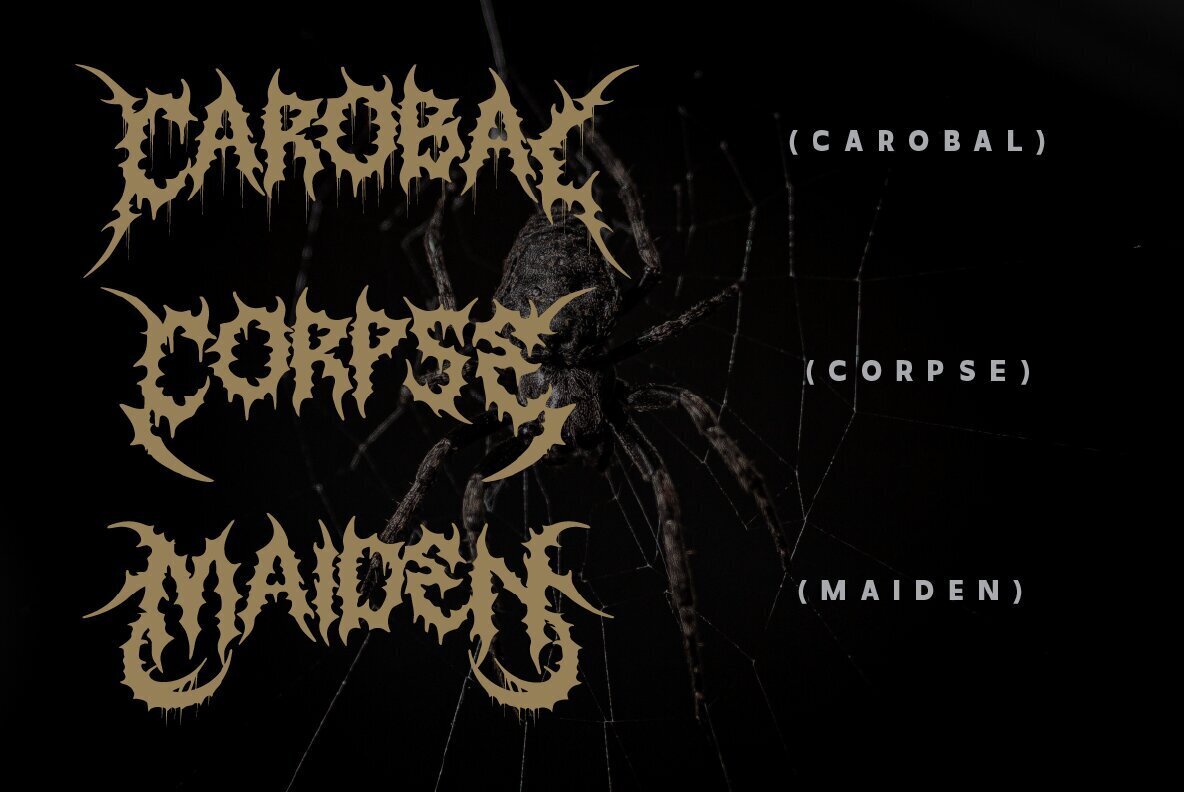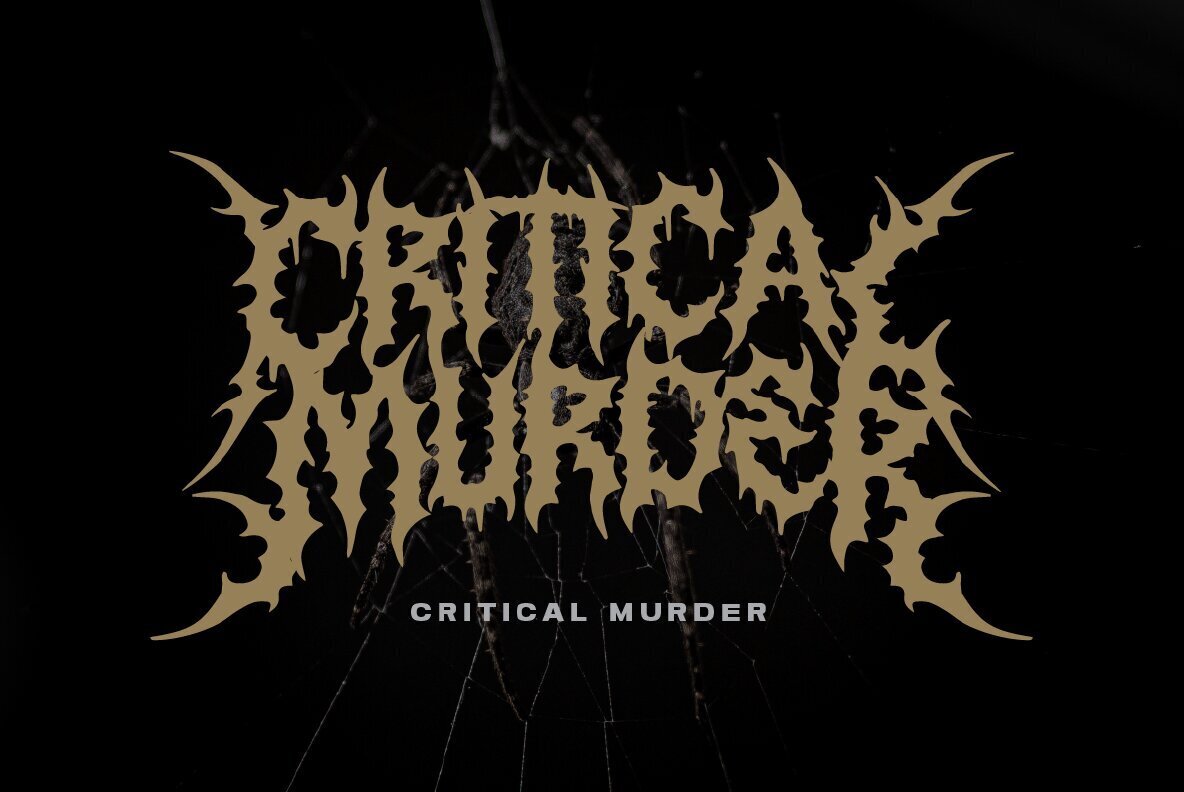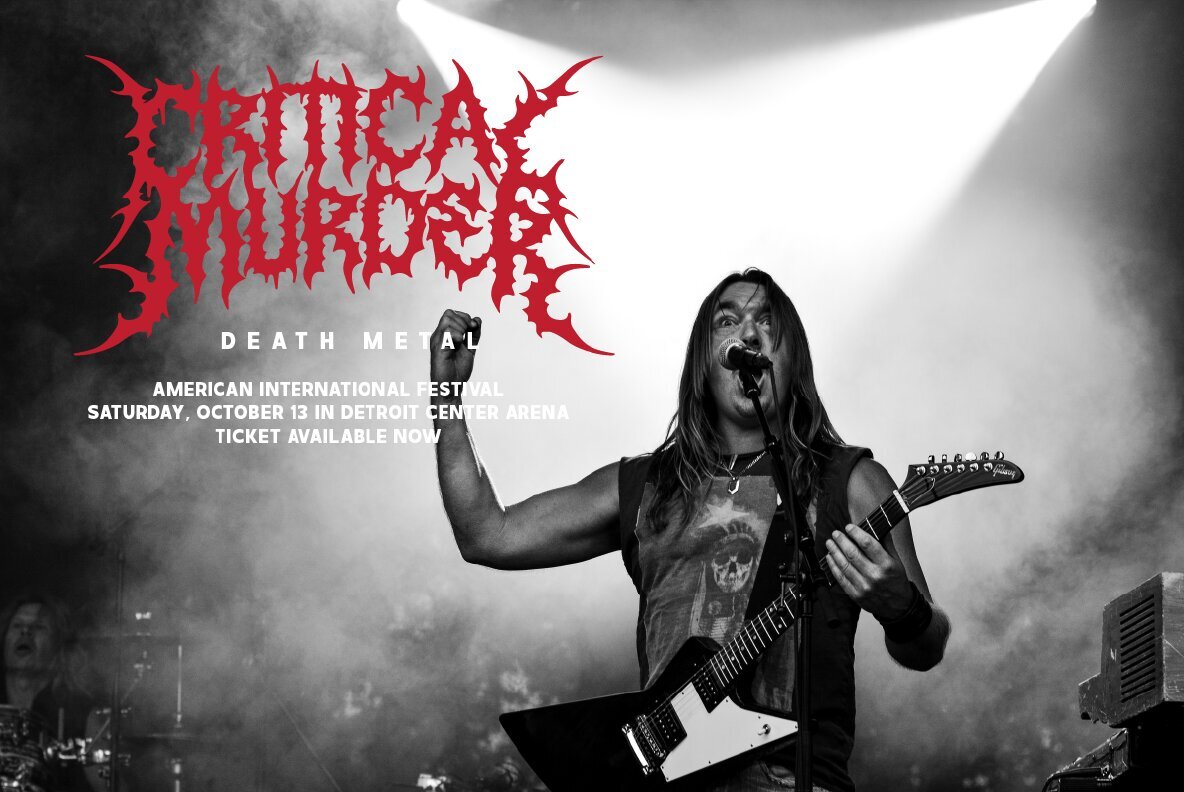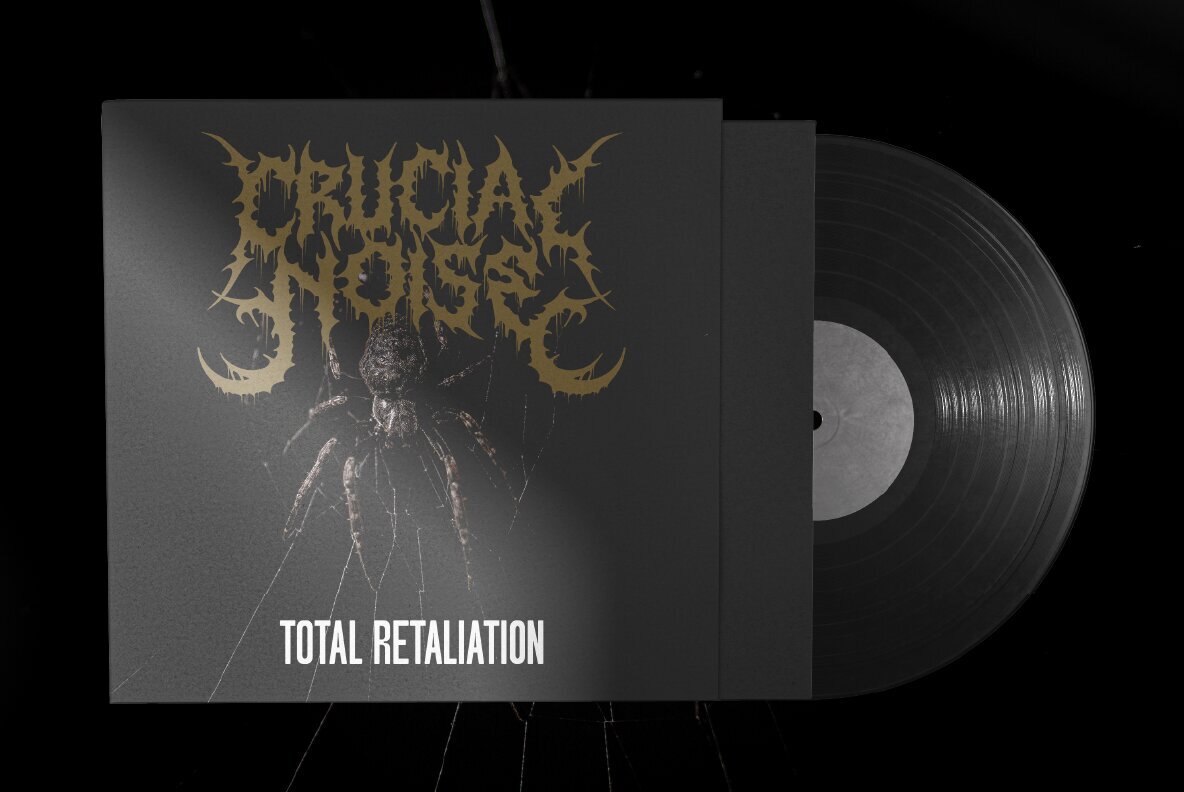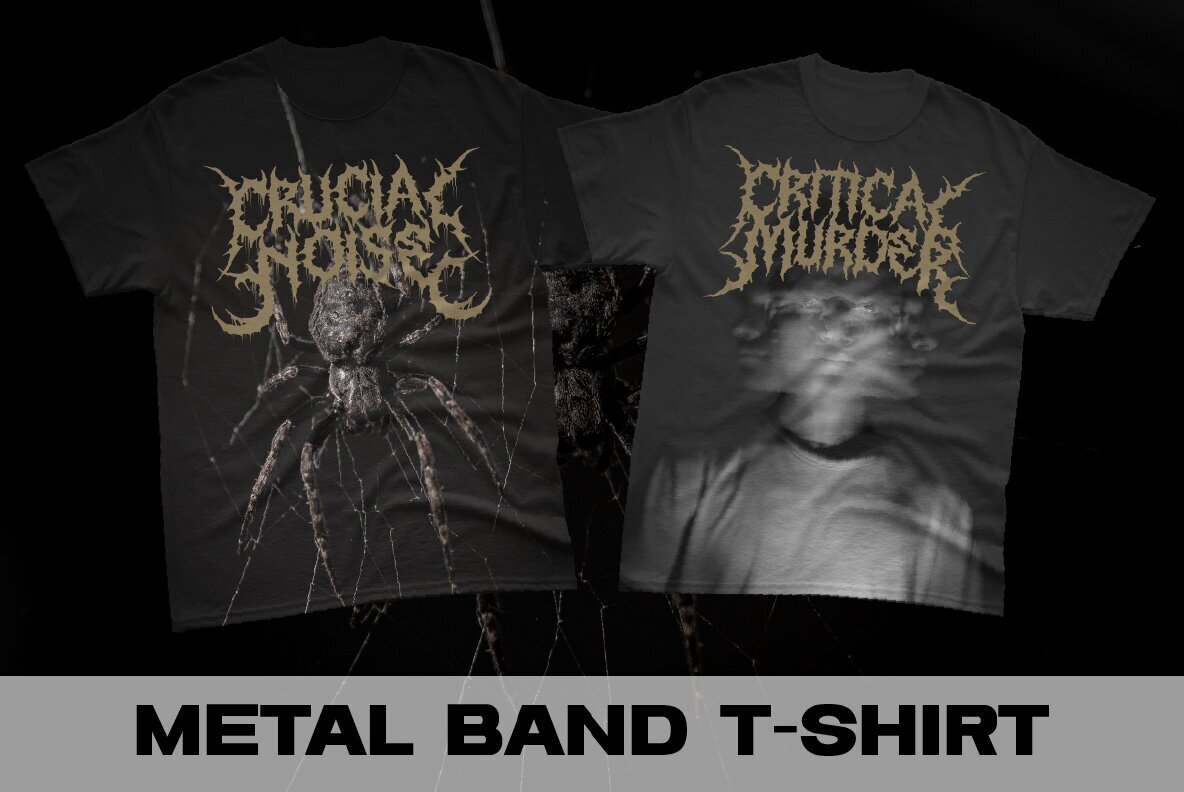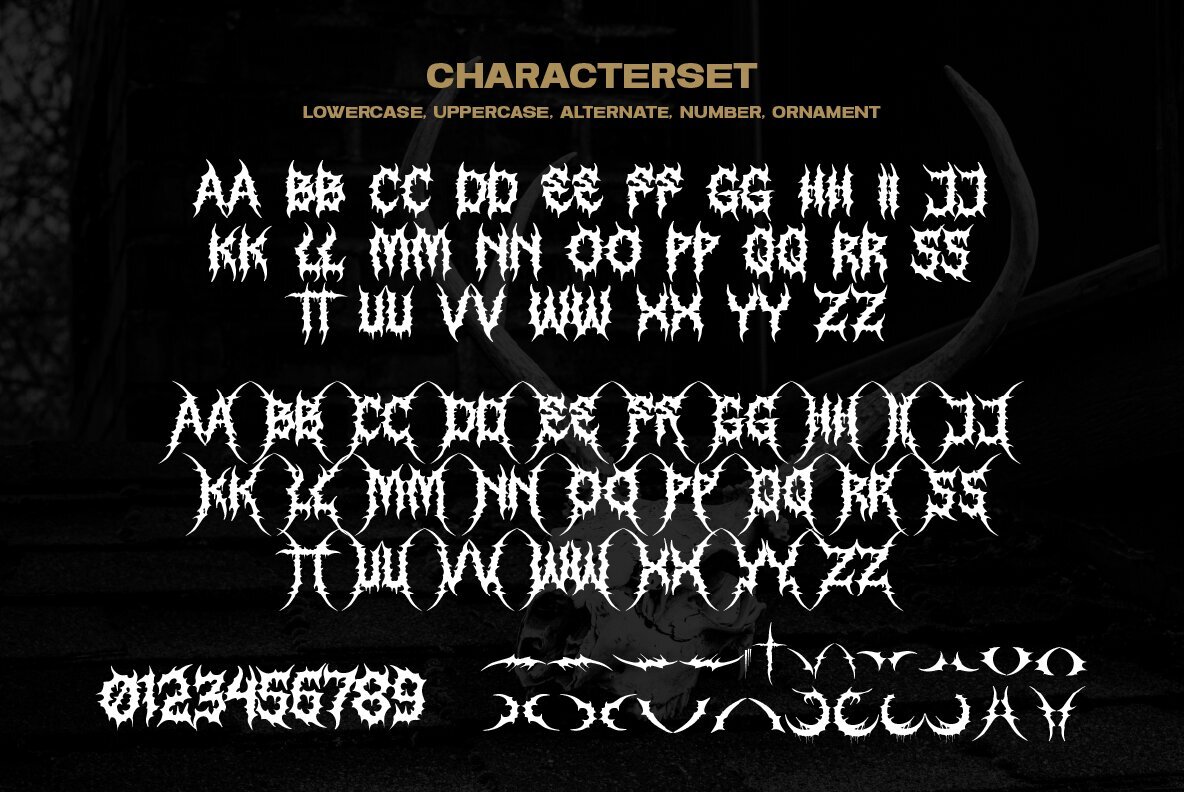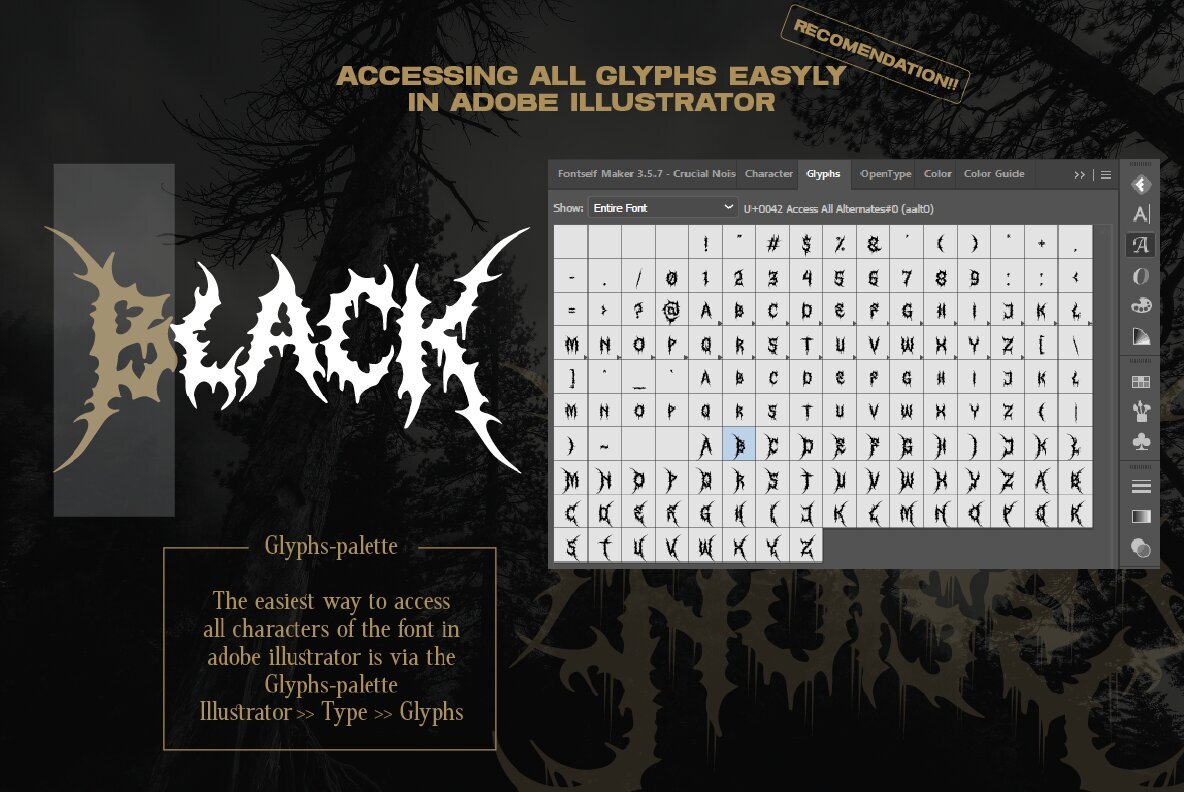
Crucial Noise Font
The Crucial Noise font offers designers a compelling alternative for crafting authentic logos, particularly suited for underground bands and music projects. Its distinct alternate front and ending letters imbue designs with a sense of vitality and edge, aligning perfectly with the aesthetics of Death- and Blackmetal genres.Crucial Noise: Dynamic Typeface for Extreme Music